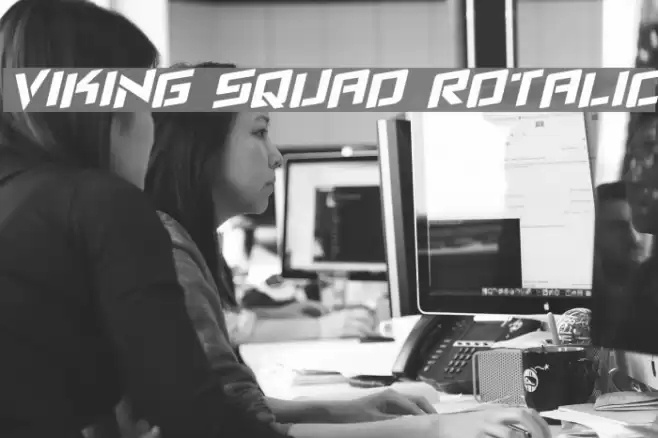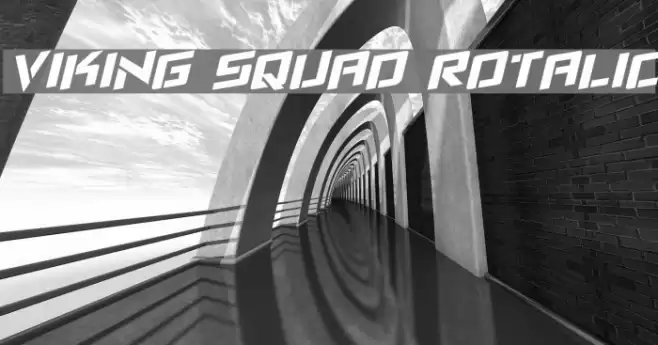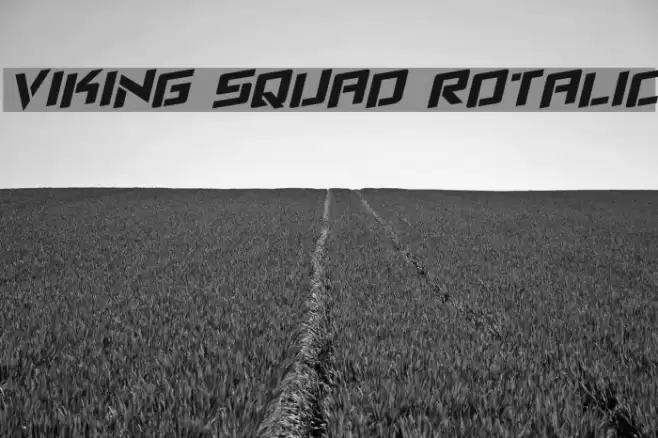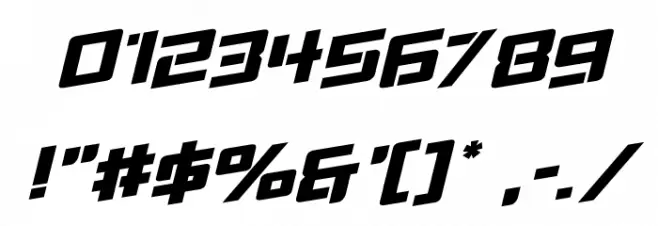
Viking Squad Rotalic Font
Viking Squad Rotalic Description
This font features a bold and dynamic style with a distinct slant, giving it a sense of motion and energy. The characters are angular and sharp, with a futuristic and edgy appearance. The uppercase and lowercase letters maintain a consistent style, with the uppercase being more prominent and commanding. The numerals and special characters are designed to match the overall aesthetic, ensuring a cohesive look across all text elements. This font is ideal for projects that require a modern and impactful visual presence.
A bold, slanted font with an angular, futuristic style from Uncategorized fonts.
- Proposed Projects: Ideal for video game titles, sports branding, and dynamic posters.